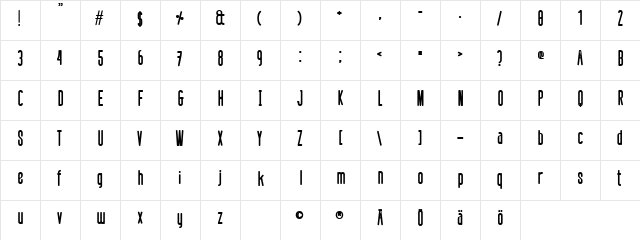
defatted milk Bold
| Foundry | Nils von Blanc |
| Designer | Nils von Blanc |
Design Context for defatted milk Typeface
defatted milk is a composed and adaptable typeface that performs quietly and consistently across a wide range of design contexts. Its bold stroke weight gives it real presence on the page.